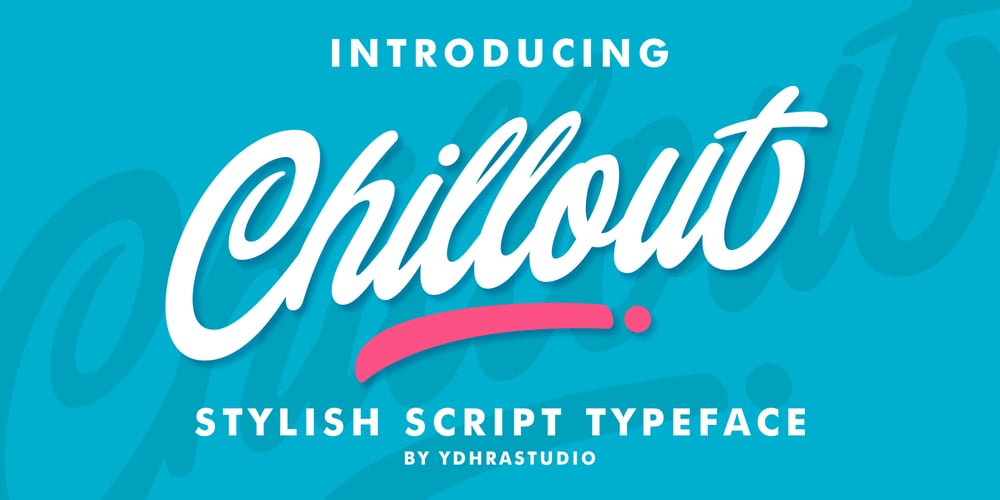
Chillout
Chillout font
Chillout Font Family was designed by Yudha Rahmat Ageng and published by YdhraStudio. Chillout contains 2 styles and family package options. Chillout is a stylish script font inspired by bold and colorful hand lettering style, so you can bring your design look more beautiful, chill and stylish with this typeface. We give you bonus a swash to make your design look more awesome with Chillout.Chillout also has a standard Multilingual Support.Chillout is great for Logotype, Branding Design, Logo Design, Digital Lettering Arts, Instagram Design, T-Shirt/Apparel, Poster, Magazine, Quotes, Signs, Advertising Design, and any Cheerfull and Colorfull design needs. Chillout Features :- Upper and Lowercase Standard Characters, Punctuation, Numerals.- Opentype Features such as Standard Ligatures, Discretionary Ligatures and Stylistic Set (ss01 – ss09) and swashes.- PUA Encoded Characters – Fully accessible without additional design software.- Includes a range of multilingual characters.You can access all those alternate characters by using a program that supports OpenType features such as Adobe Illustrator CS, Adobe Indesign & CorelDraw X6-X7.Guides to access all alternates glyphs : http://adobe.ly/1m1fn4YMix and match the alternate characters to add an attractive message to your design.Please, feel free to contact me by e-mail yyudhara@gmail.com for any question about my font, Extended License document and more.Good Luck and Have fun !YdhraStudio